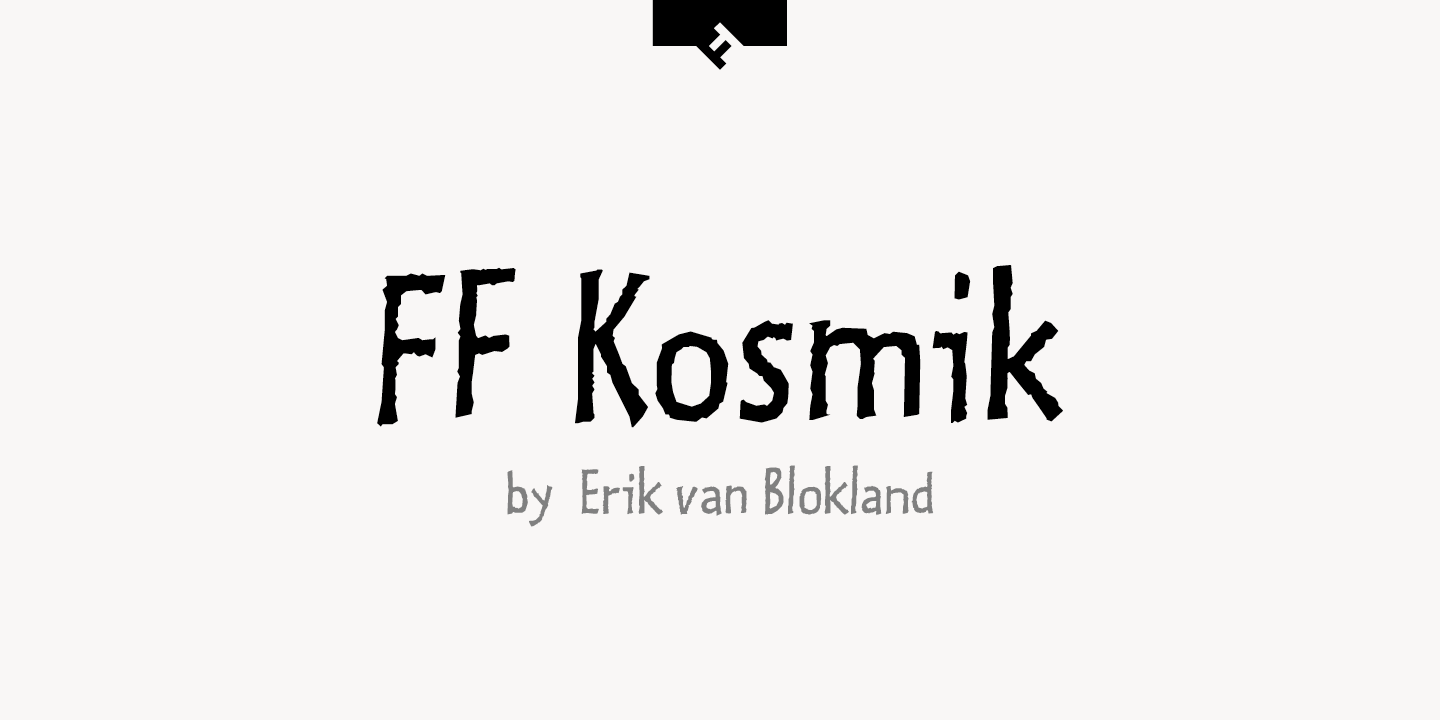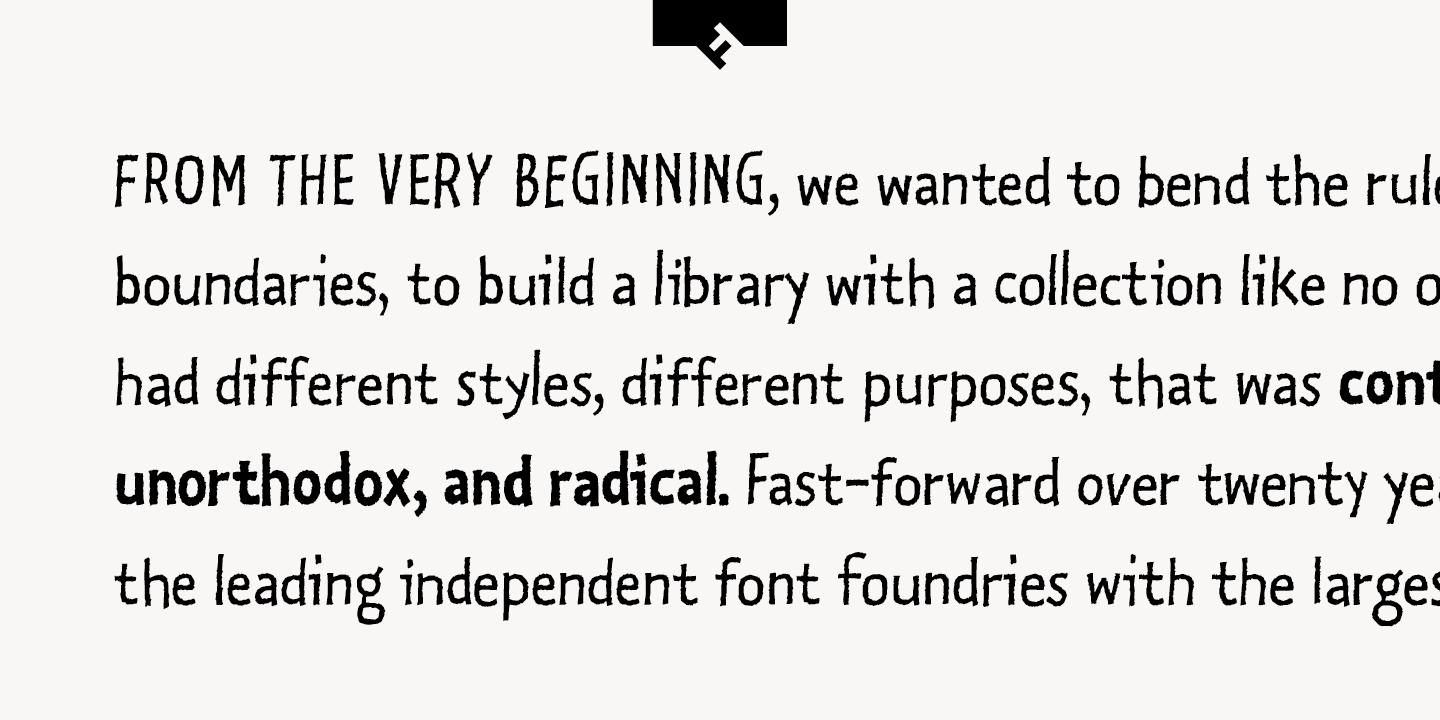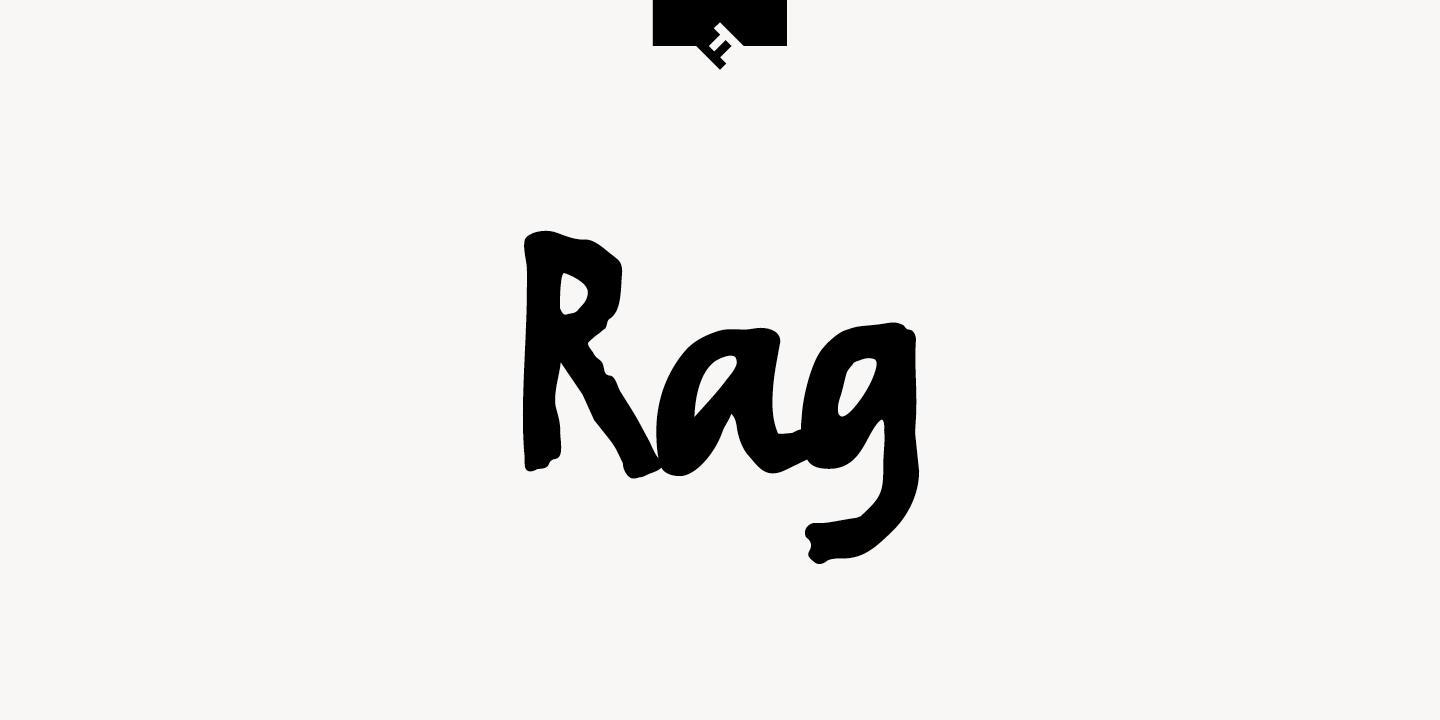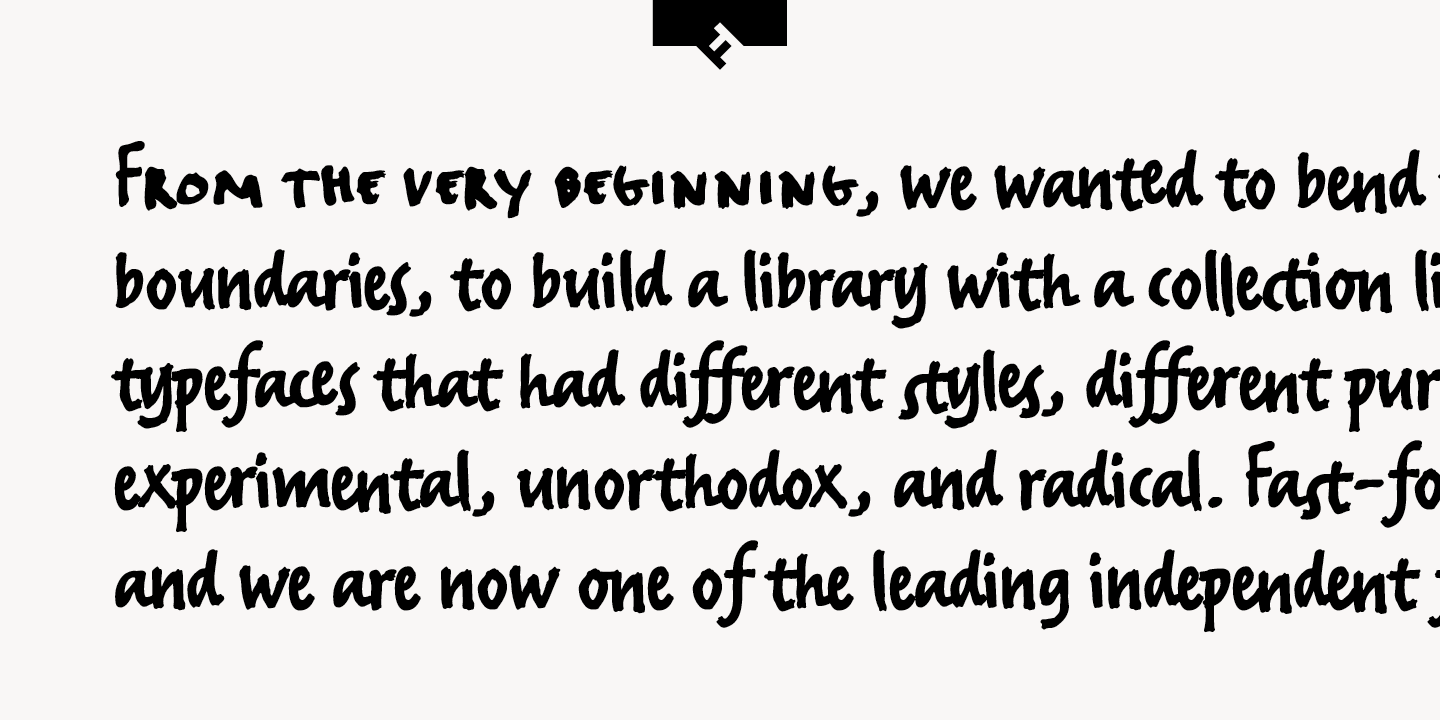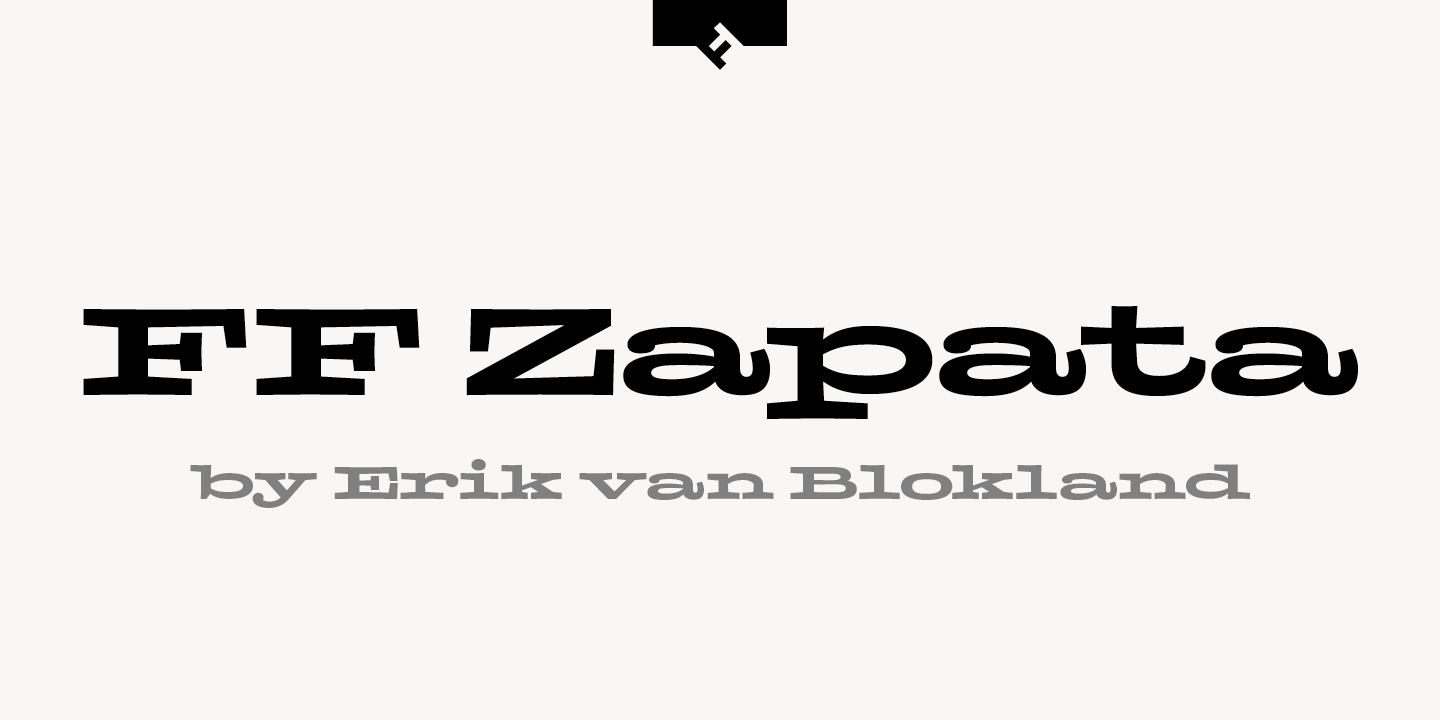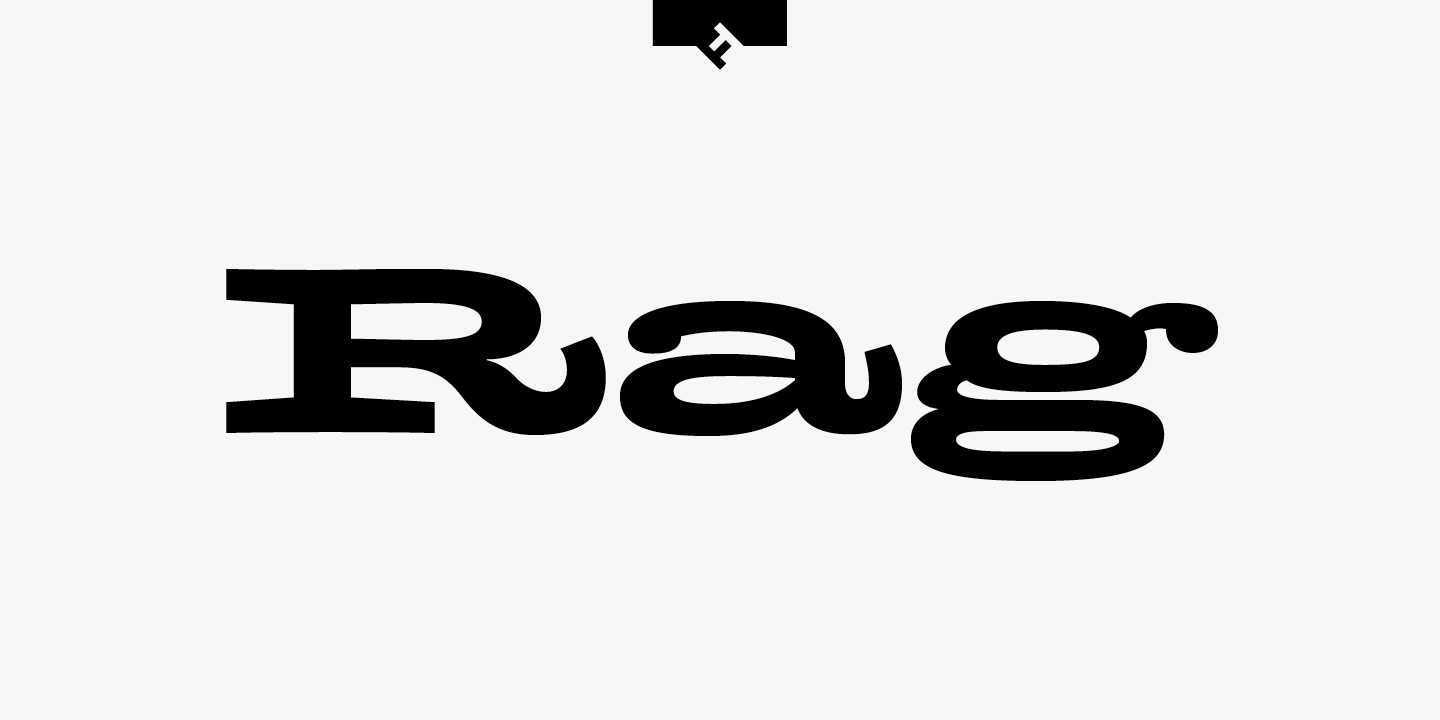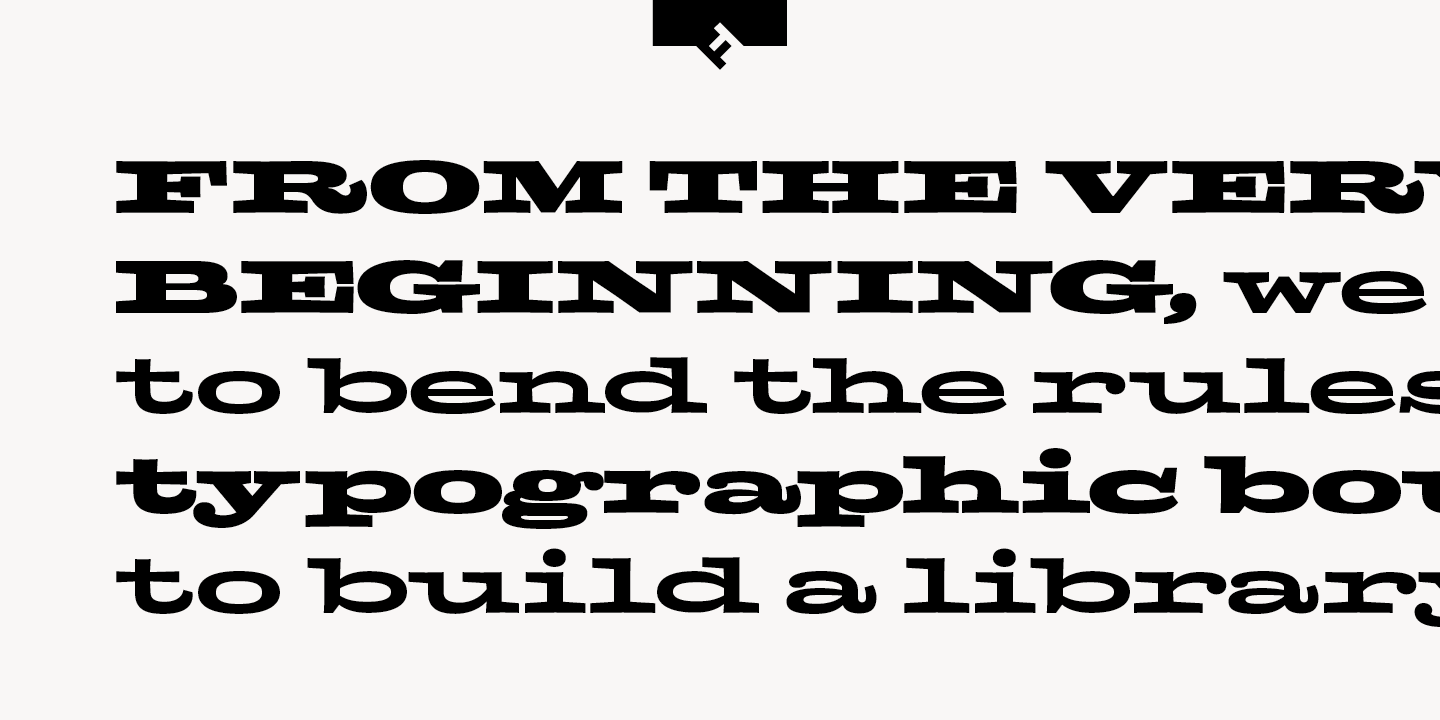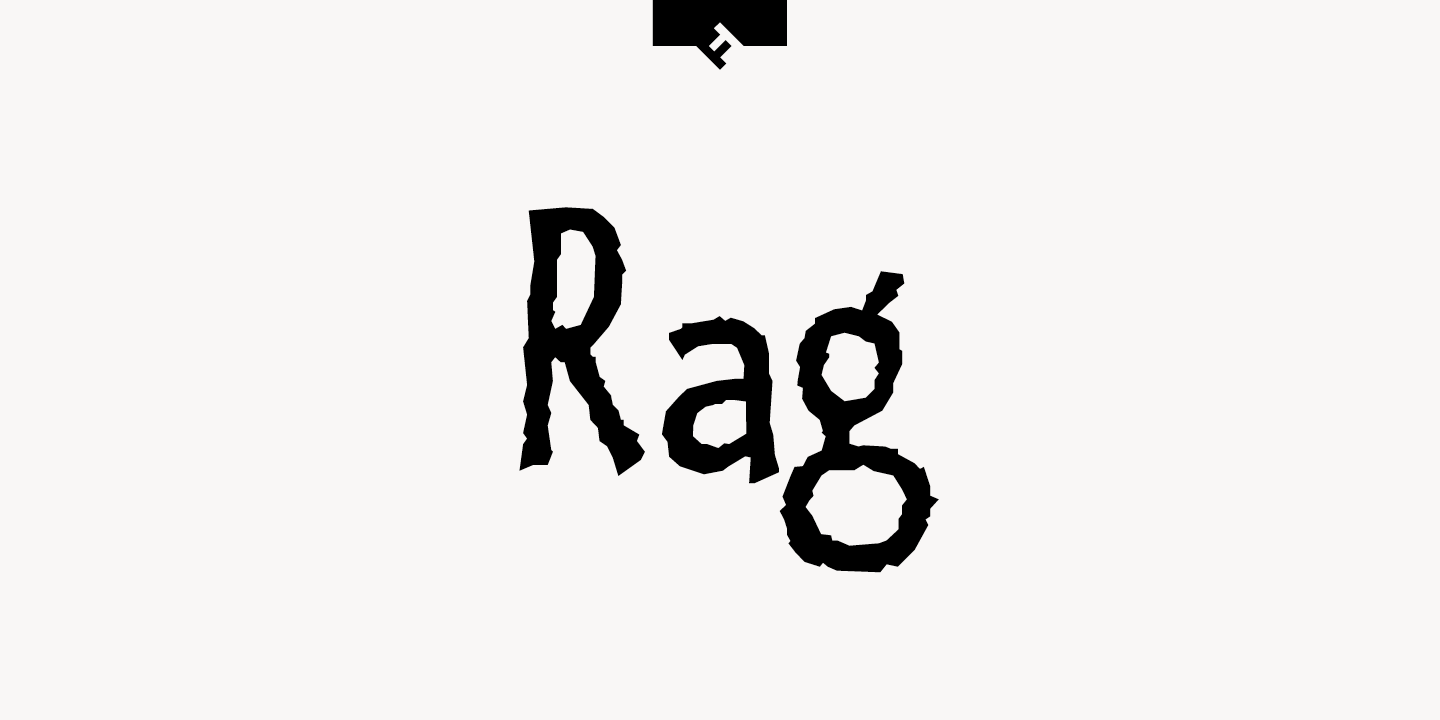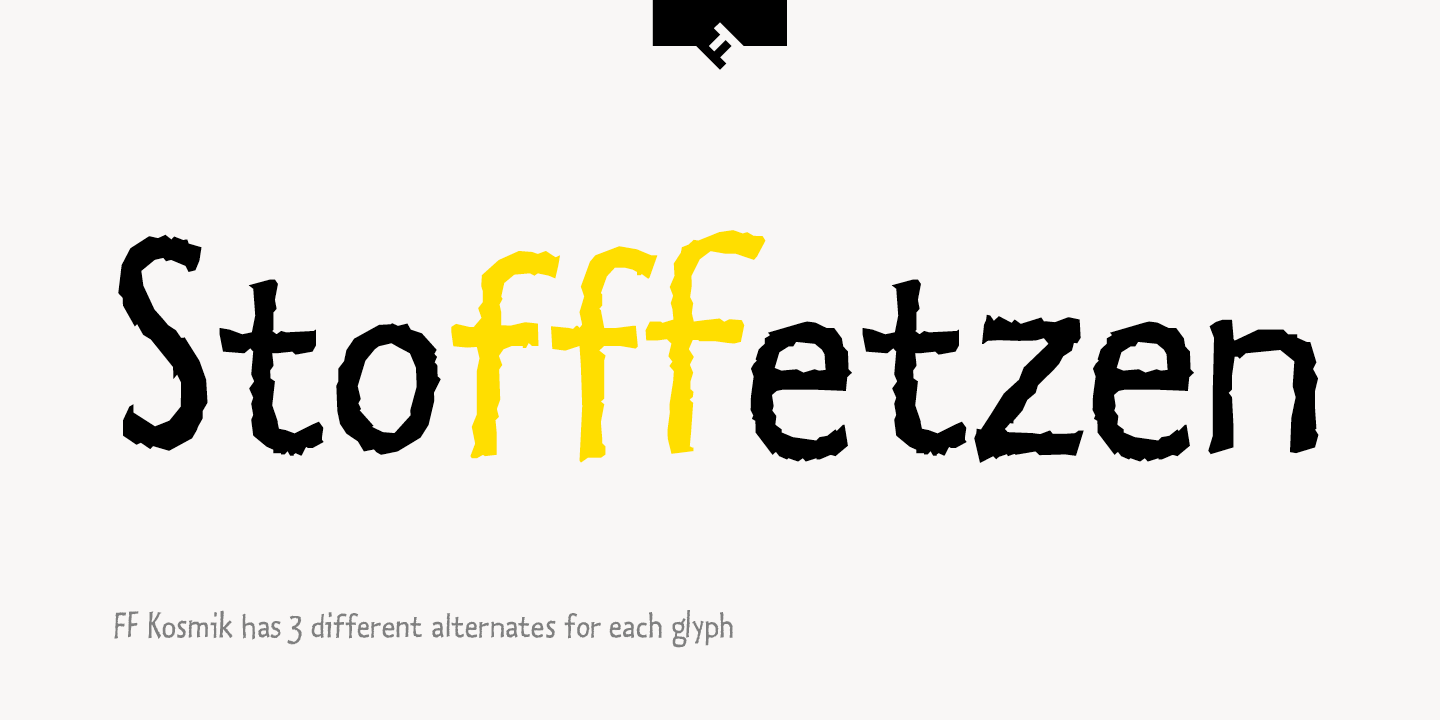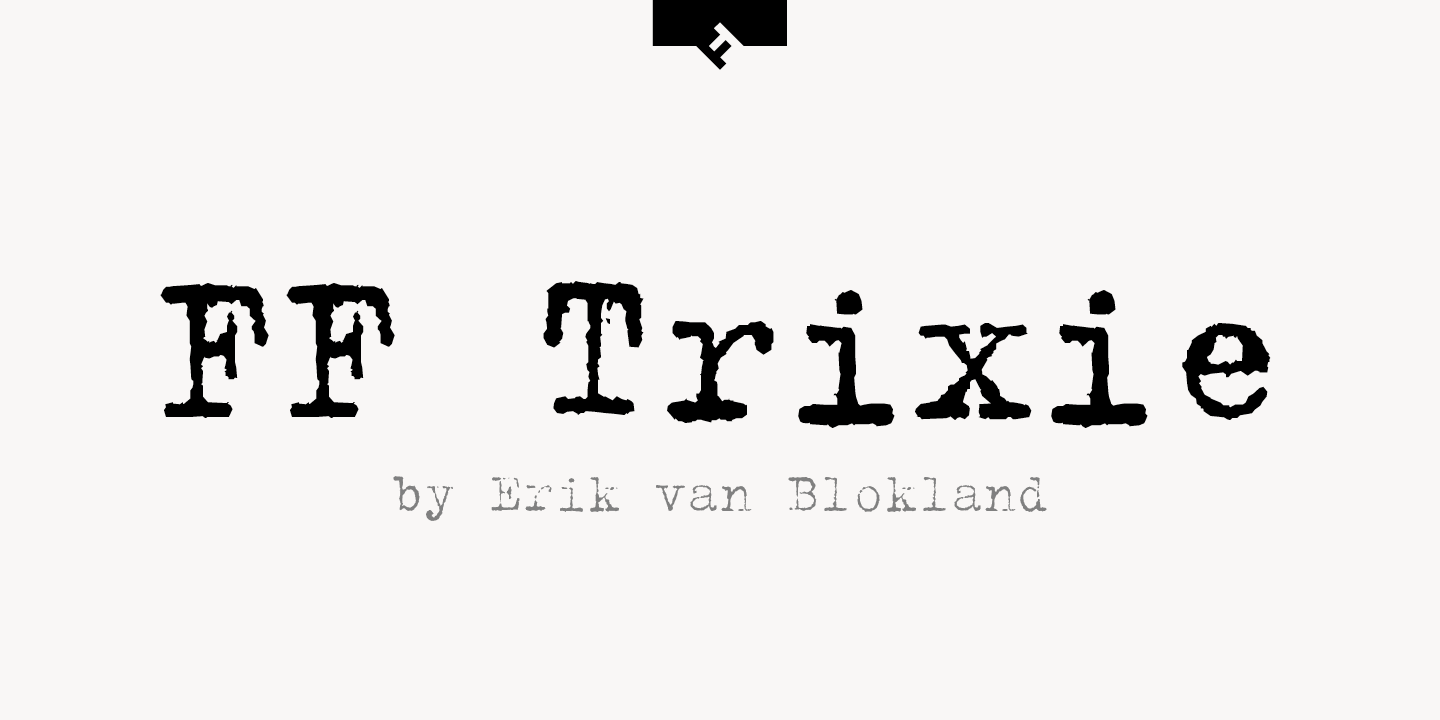
Erik van Blokland of Netherlands
Born: Gouda, 1967
Dutch type designer. Started the LettError virtual type foundry with Just van Rossum, with whom he worked at MetaDesign. Fame came with the release of Beowolf (co-designed with van Rossum), a font whose ragged edges shift randomly each time you print the font. Another font of his, Kosmik, has a version that flips between three alternates for each character for a more friendly, hand-drawn feel. Most of his fonts are published by FontFont. He is a key developer on the Robofog project with van Rossum and Petr van Blokland.
Fonts by Erik van Blokland
FF Beowolf, FF Erikrighthand, FF Kosmik, FF Trixie, FF Zapata